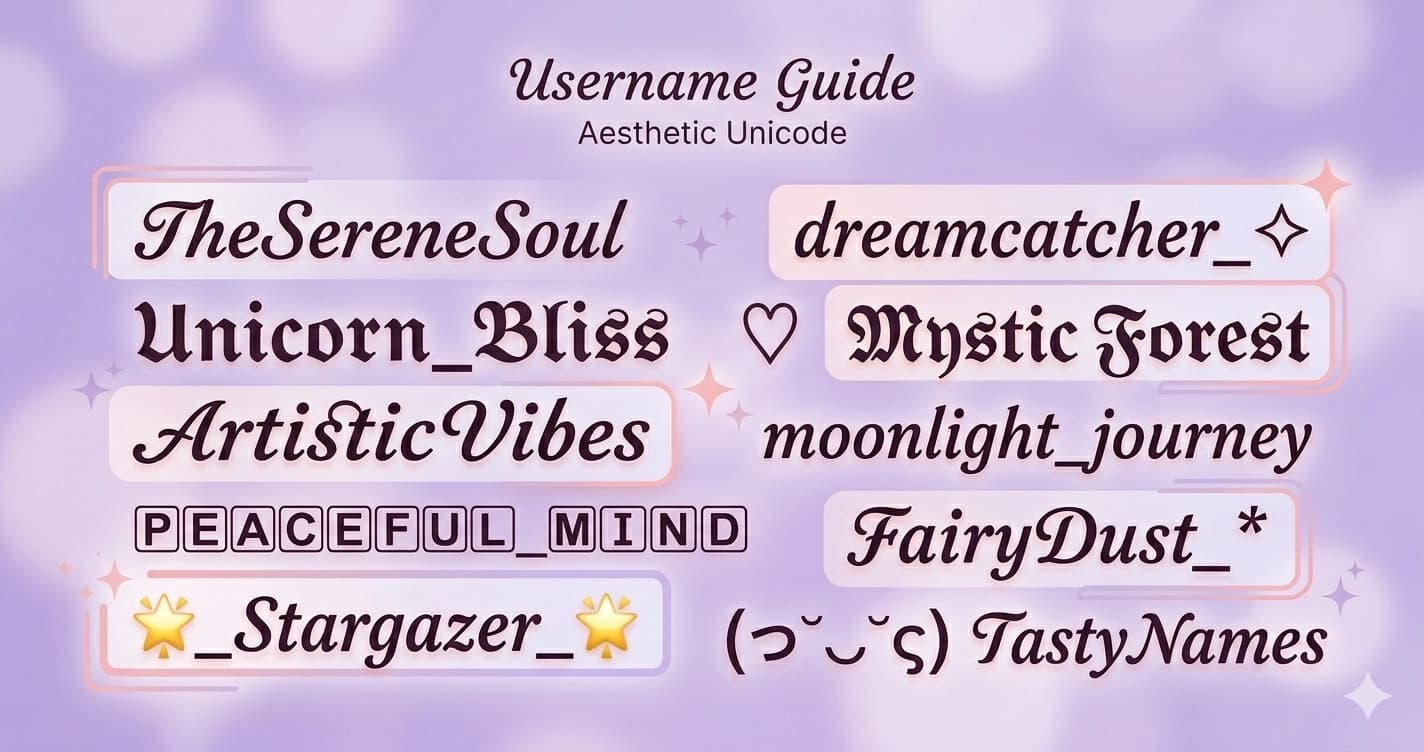
Aesthetic Usernames — How to Create a Standout Identity Across Every Platform
Your username is the first thing people see. Before your content, before your bio, before your photo — the handle establishes your identity in @mentions, in search results, in the member list of every server you join. It works in two or three seconds or it doesn't work at all.
Aesthetic usernames aren't about decoration for its own sake. They're about communicating the right identity signal to the right audience before they've read anything. This guide covers how to do that — by platform, by aesthetic, and with the technical constraints that most guides ignore.
The Platform Problem: No Universal Username
The first thing to understand about aesthetic usernames is that there is no single username that works everywhere. Every major platform has different rules, different character limits, and different levels of Unicode support.
PlatformUsername LimitUnicode in Username?Unicode in Display Name?Special Chars Allowed
TikTok24NoYes_ . only
Instagram30NoYes (Name field, 30 chars)_ . only
Twitter / X15NoYes (display name, 50 chars)_ only
Discord32NoYes (display name, 32 chars)_ . only
YouTube30LimitedYes (channel name)Varies
Twitch25NoYes_ only
Pinterest15NoYes_ only
Reddit20NoNo username styling_ - only
The universal rule: Usernames — the identifiers used in @mentions, URLs, and search — are restricted to plain Latin characters across essentially every major platform. No Unicode styled text, no emojis, no special characters beyond underscores and periods.
Display names — what appears in your profile header, member lists, and beside your posts — support Unicode on most platforms. This is where aesthetic font styling lives.
The strategic implication: design your username for search and memorability (plain text, short, consistent), and your display name for visual identity (styled, expressive, aesthetic-specific).
Username Design Principles
Because usernames are restricted to plain text, aesthetic comes from structure and choice — not font styling.
The Three Username Archetypes
The Clean Handle — A single word or two-word combination, no numbers, no underscores. Maximum searchability, maximum memorability. Hard to get on major platforms if you're late to the game, but worth the effort: @luna, @darkstar, @solara.
The Stylized Plain — Uses underscores, periods, or strategic number placement to get a clean name that's already taken. Less ideal than Clean Handle but more professional than random numbers: @luna.rose, @dark_star, @solara.jpg.
The Aesthetic Plain — Uses lowercase, word choice, and structure to signal aesthetic identity through the username itself, without any styling characters: @aftermidnight, @morningmist, @notinthislife. The words carry the aesthetic weight.
What Makes a Username Stick
Pronounceable — Can someone say it out loud and know how to type it? @xXdarklordXx fails this. @darkstar passes.
Searchable — Would someone who vaguely remembers your name find you? Names with unusual spellings or multiple underscores are hard to search. Short, dictionary words are easy.
Consistent — The same username across platforms builds recognition faster than anything else. Before choosing, check availability on TikTok, Instagram, Twitter, Discord, and Twitch simultaneously.
Appropriate length — Shorter is almost always better. Under 12 characters is the sweet spot. Under 8 is ideal. Long usernames get truncated in sidebars, member lists, and notifications.
Display Name Styling by Aesthetic
The display name is where Unicode fonts make a real difference. Here's the aesthetic-to-font mapping:
Coquette
Visual language: bows, ribbons, soft pink, romantic, deliberately feminine.
Best fonts: Bold Cursive (𝓒𝓸𝓺𝓾𝓮𝓽𝓽𝓮) and Italic (𝐶𝑜𝑞𝑢𝑒𝑡𝑡𝑒). The looping, flowing quality of script fonts matches the ornate, feminine visual language of the aesthetic.
Display name structure: 𝓢𝓸𝓯𝓲𝓪 🎀 — first name in Bold Cursive, a single accent emoji.
Dark Academia
Visual language: old books, candlelight, Gothic architecture, literary melancholy, tweed.
Best fonts: Gothic/Fraktur (𝔇𝔞𝔯𝔨 𝔄𝔠𝔞𝔡𝔢𝔪𝔦𝔞) and Double-Struck (𝔻𝕒𝕣𝕜). The historical weight and visual density of these styles fits the scholarly, serious tone.
Display name structure: 𝔞𝔯𝔠𝔥𝔦𝔳𝔦𝔰𝔱 — lowercase Gothic, no emoji, minimal.
Y2K
Visual language: chrome, neon, metallic surfaces, early internet, bubble letters.
Best fonts: Bubble (ⓑⓤⓑⓑⓛⓔ) and Vaporwave/Full-width (YZK). Bubble captures the inflated digital roundness; full-width captures the wide, spaced, digital maximalism.
Display name structure: ⓢᴋʏ ✦ y2k — bubble text for the name, plain text accent.
Cottagecore
Not checking rendering. A display name that looks perfect on your iPhone may render differently on an Android or a desktop browser. Unicode support is broad in 2026, but checking your styled name across device types before committing is worth two minutes.